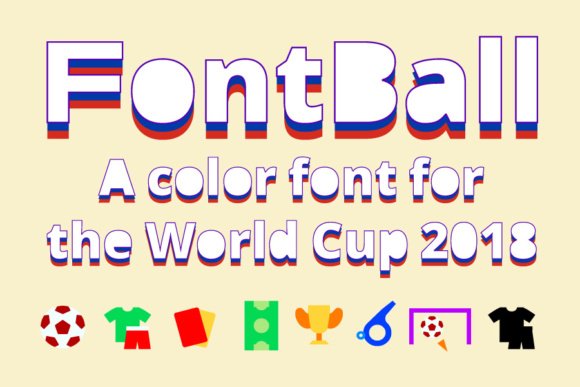
Get Ready to Score Big with FontBall Font
Are you still buzzing from the excitement of the World Cup? If you’re anything like me, the colorful atmosphere and infectious energy of the tournament have left you feeling inspired and eager to create something new. As a designer, I know that finding the right font can make all the difference in bringing your ideas to life. That’s why I’m excited to introduce you to the FontBall Font, a vibrant and festive color font that’s sure to add a touch of World Cup magic to your designs.
This 3-layer color font is not only a great way to give your work a charming and easy feel, but it’s also incredibly versatile. With 8 smart icons and compatibility with popular design software like PhotoShop and Illustrator, the FontBall Font is a valuable addition to any designer’s toolkit. Whether you’re working on a sports-themed project or just want to add a pop of color to your designs, this font is sure to score big with your clients and fans alike.
- Unique Characteristics: FontBall Font features a unique blend of modern and vintage elements, making it ideal for creating eye-catching and memorable designs.
FontBall Font Review
Overall, I’m quite impressed with FontBall Font, and I think it’s a great addition to any designer’s toolkit. Here’s what I love about it: ✨
- Unique and playful character set
- Works well for titles, headings, and short paragraphs
- Customizable and highly versatile
- Great for digital and print projects alike
However, like any font, FontBall Font has its limitations: ⚠️
- May not be suitable for large blocks of text due to its playful nature
- Can be difficult to read in certain font sizes or combinations
- Not ideal for formal or professional projects
Overall, I think FontBall Font is a fantastic choice for designers who want to add some personality to their projects. It’s perfect for creative agencies, startups, and anyone looking to make a statement. With some careful consideration of its limitations, I’m confident that FontBall Font can be a valuable addition to any designer’s library.
FontBall Font is ideal for creating bold, playful, and eye-catching designs. Some common use cases include:
1. Social media graphics and advertisements.
2. Party invitations and event materials.
3. Children’s educational materials and games.
4. Branding and logo designs for creative businesses.
Remember to experiment with different font sizes, colors, and combinations to get the most out of FontBall Font.